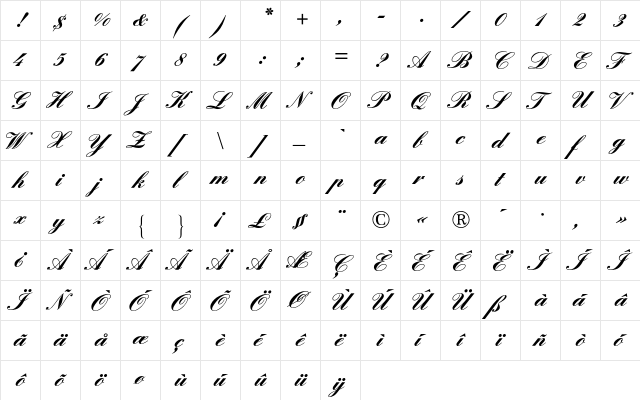
Englische Schreibschrift BQ Regular
Design Context for Englische Schreibschrift BQ Typeface
Englische Schreibschrift BQ is a composed and adaptable typeface that performs quietly and consistently across a wide range of design contexts.